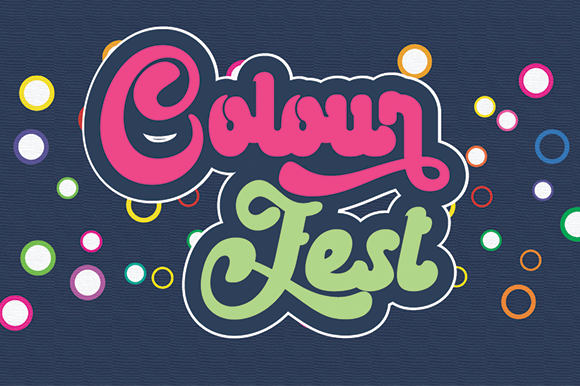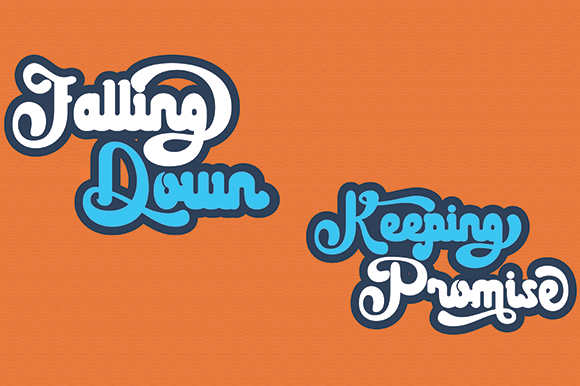
The Stacy Font
db-ku.com - Script & Handwritten -- The Stacy is a retro styled script font. This font reads as strong, confident, and dynamic and can add tons of nostalgic character to your designs.